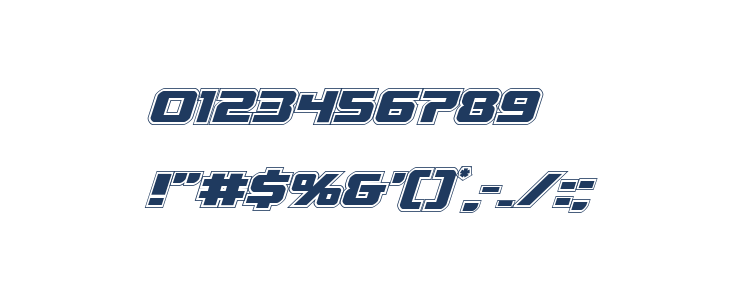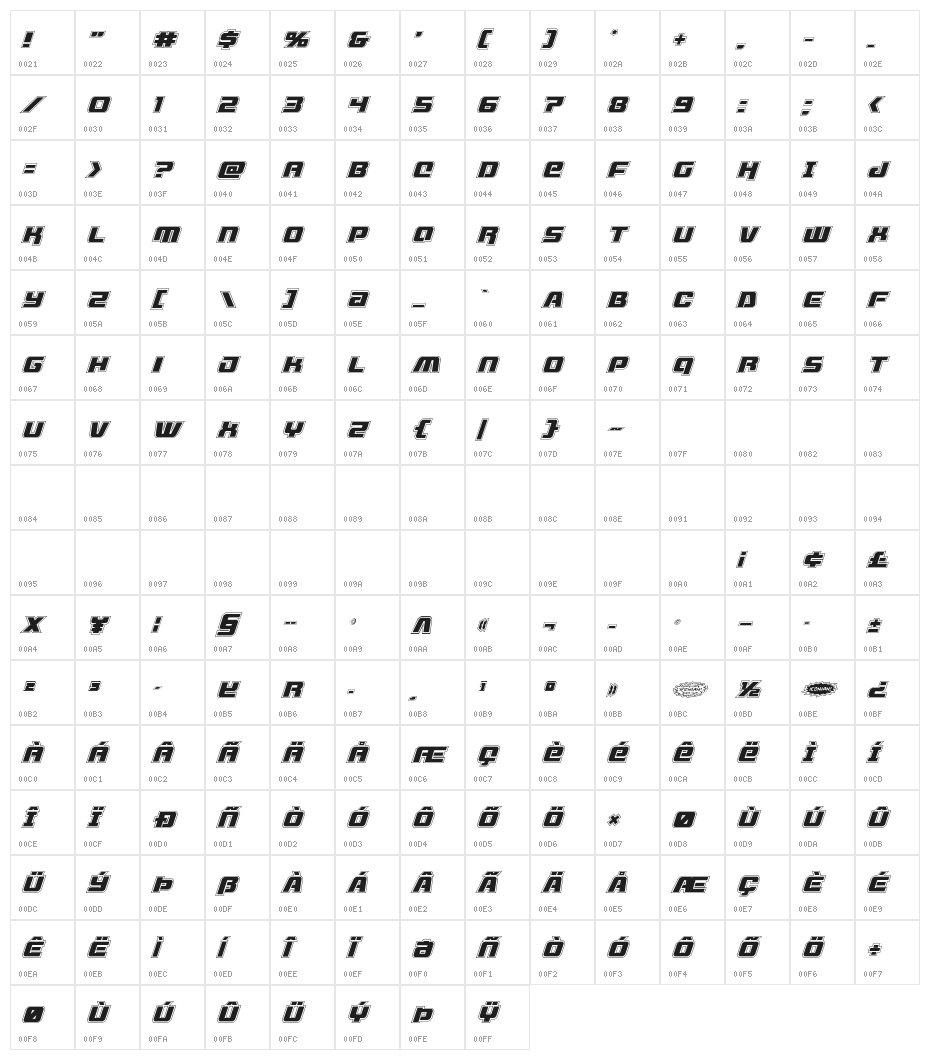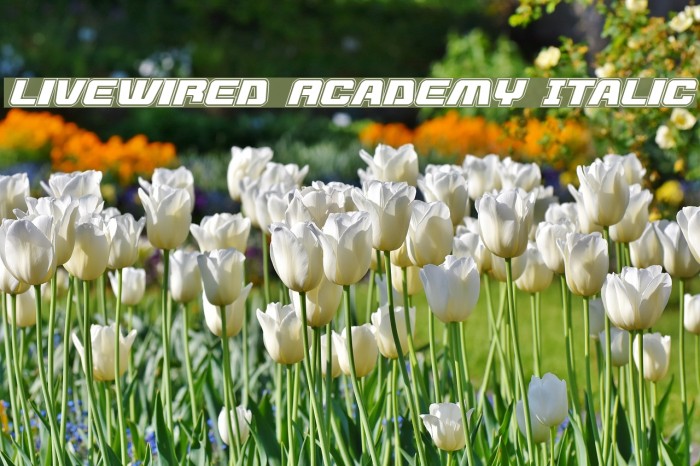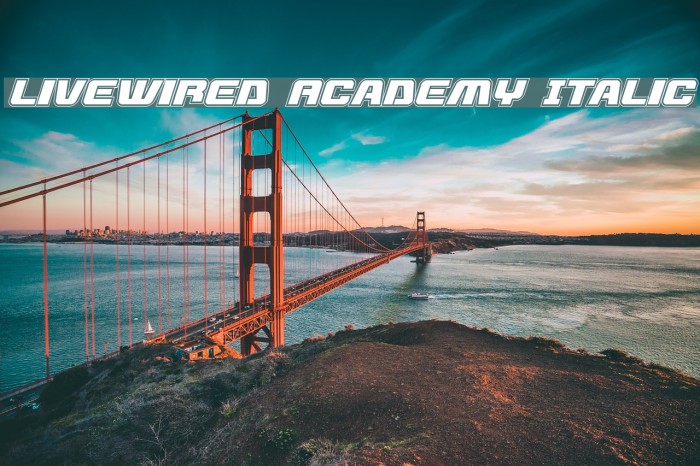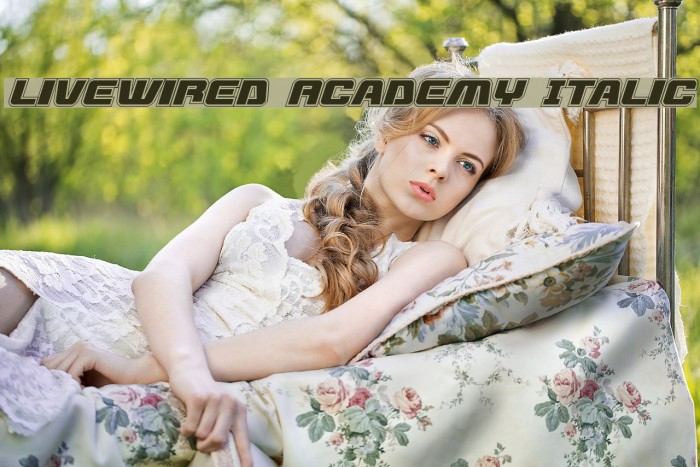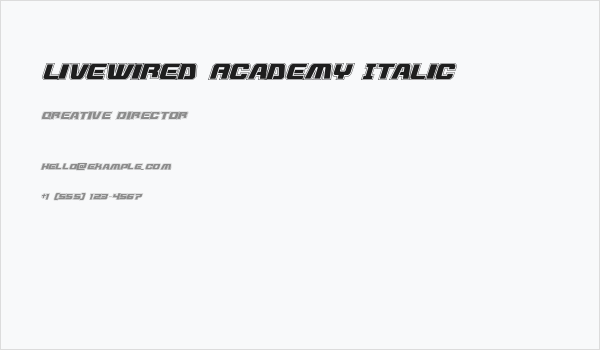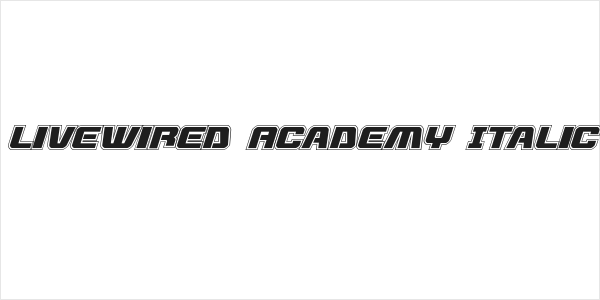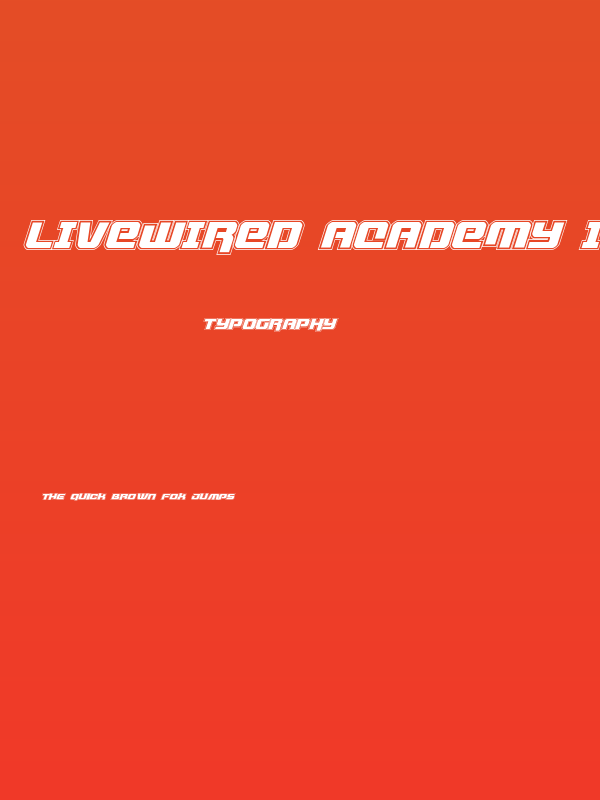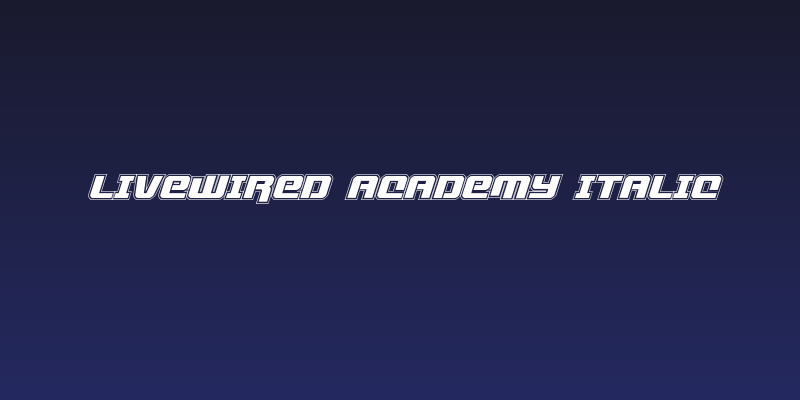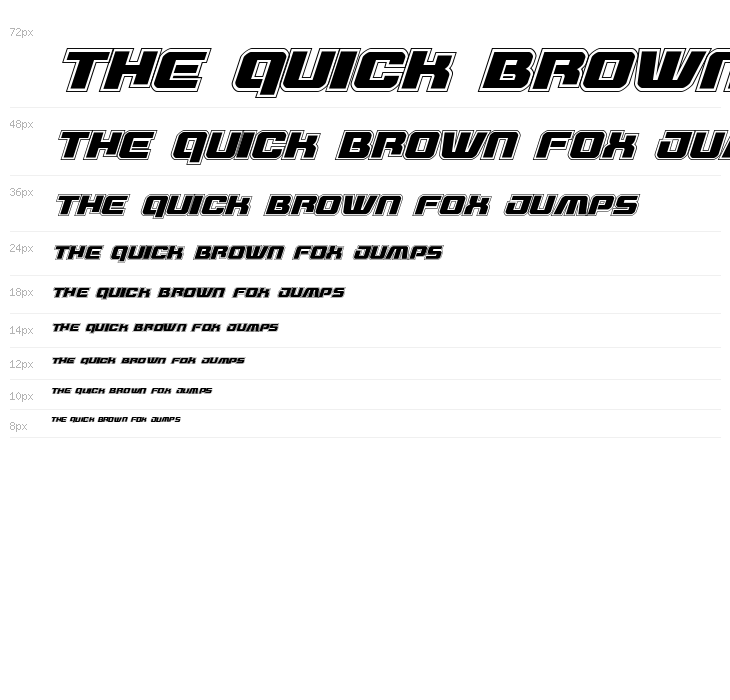
Livewired Academy Italic Font
Livewired Academy Italic Description
This font features a bold, italicized style with a modern, futuristic aesthetic. The characters are outlined, giving them a three-dimensional appearance. The uppercase and lowercase letters maintain a consistent design, with sharp angles and a dynamic slant that suggests movement. The numerals and special characters follow the same stylistic approach, ensuring uniformity across all glyphs. The font's strong presence makes it ideal for attention-grabbing headlines or logos. Its unique design is both eye-catching and versatile, suitable for various creative projects.
| Proposed Projects | Ideal for use in technology branding, sports team logos, video game titles, and dynamic poster designs. |